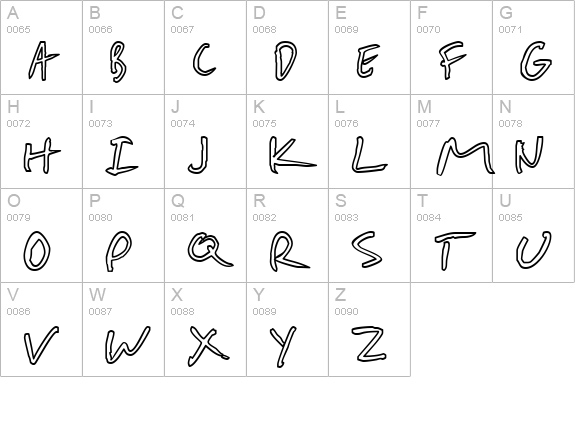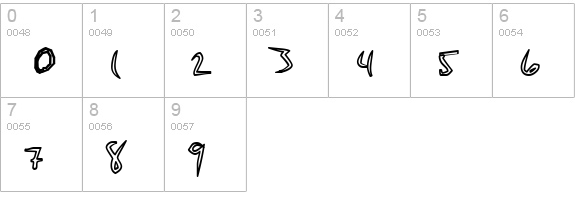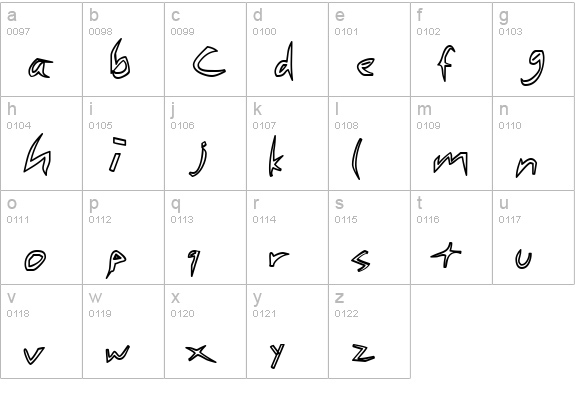
Cheap Pizza Font Details
Introducing Cheap Pizza font - a playful and quirky typeface that is perfect for adding a touch of fun to your designs. This unique font features irregular shapes and a hand-drawn aesthetic, giving it a charming and casual appearance. With its bold and eye-catching style, Cheap Pizza font is sure to make a statement in any project. Best of all, Cheap Pizza font is completely free to download at FontsMarket.com, making it accessible to all designers and creatives looking to add a creative flair to their work. Whether you're designing a poster, logo, or social media graphic, this versatile font is sure to bring a touch of whimsy and personality to your projects. Download Cheap Pizza font today and let your creativity shine!